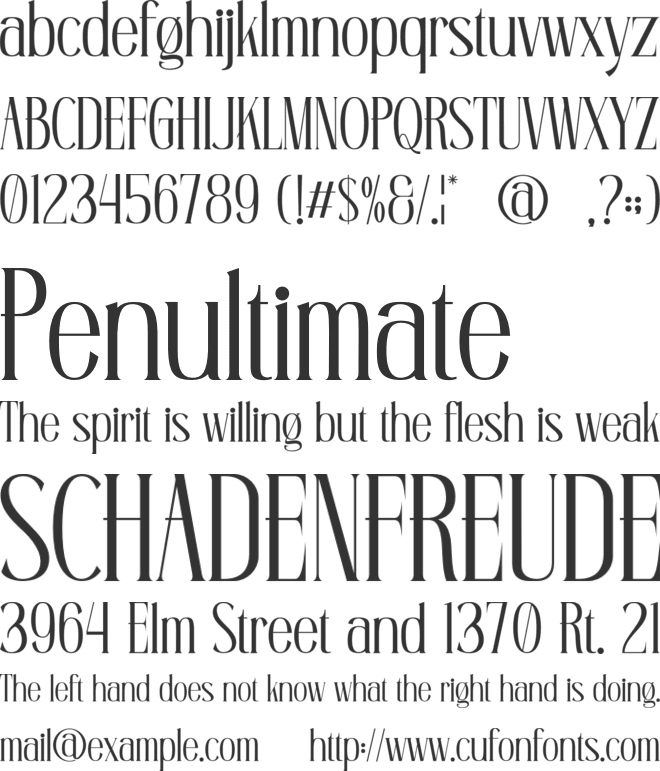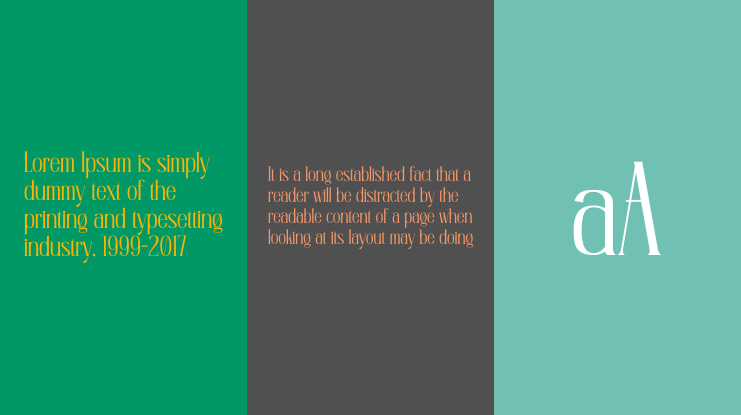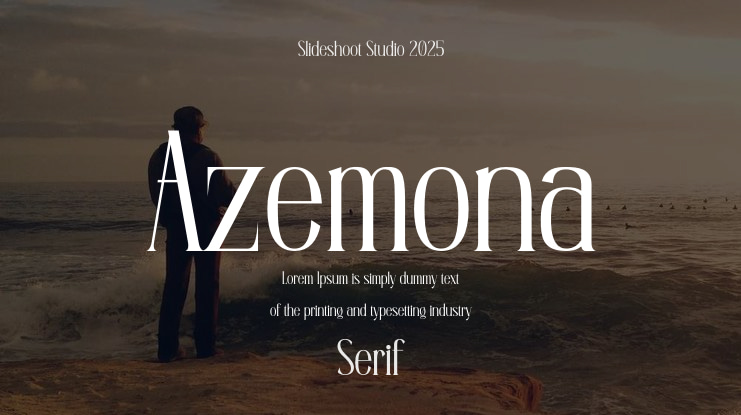
Azemona Font
Introducing Azemona is classic serif font, trendy, elegant and stylish font. It has a unique character. It is perfect to be combined with invitation card designs, company logos, movie titles, movie names, business cards, book titles, brand names and various other designs.
Azemona font preview